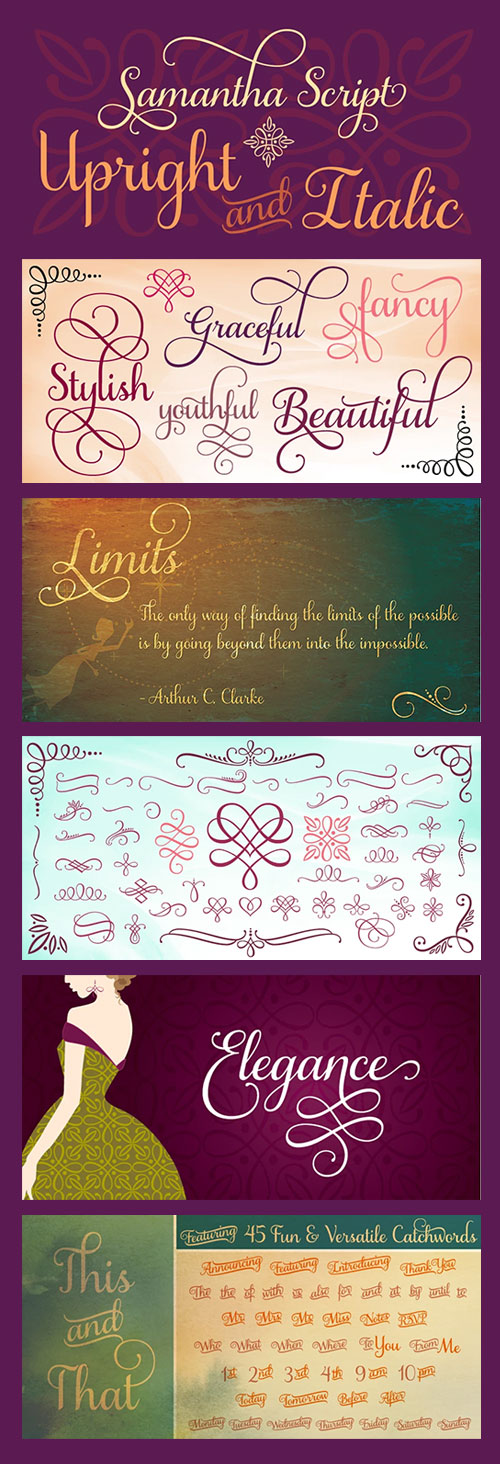
Samantha Script - Upright & Italic Typeface
- Samantha was designed with a focus on variety, versatility, beauty and practicality. With measured rhythm and contrasting, connected strokes, Samantha possesses a flowingly smooth elegance with the ability to take on many appearances, from simple styling to the fanciest of all flourishes with its 2700+ glyphs that take advantage of OpenType. Over 1100 alternate and swash letters feature ascenders and descenders that vary in length and complexity. Standard ligatures ensure that this font looks as perfect as possible and 20 discretionary ligatures enliven its style. Numerals are offered in their standard form, as well as an old style and a swash set too. The addition of 60 ornaments and 45 catchwords offer even more design possibilities.
- Samantha’s optimistic style and discipline echoes that of my beautiful niece – who is excited about everything life has to offer – bright, cheerful and gracious with wisdom beyond her years.